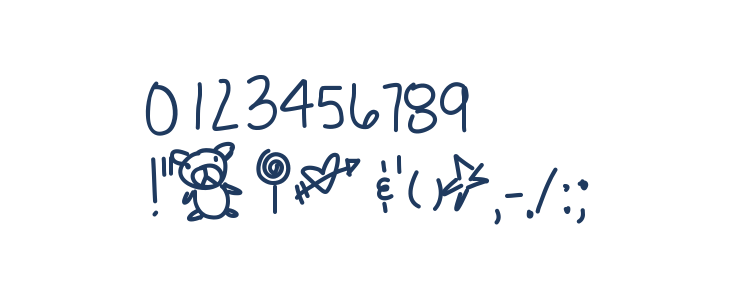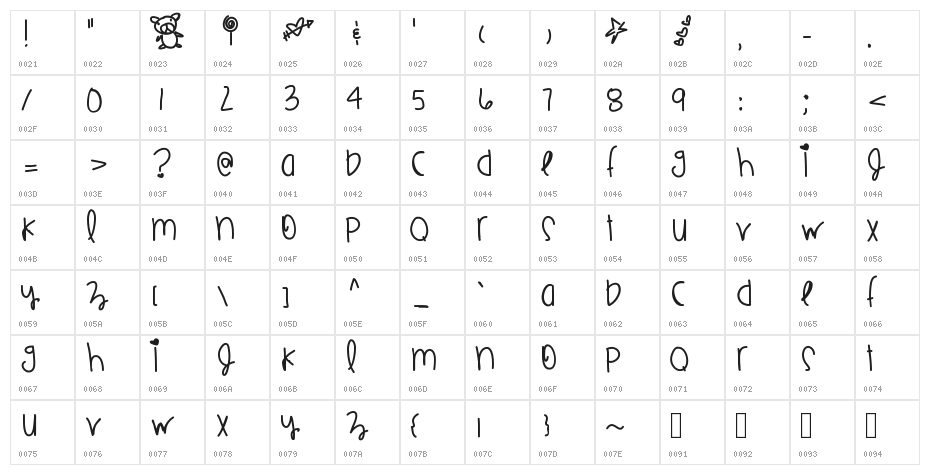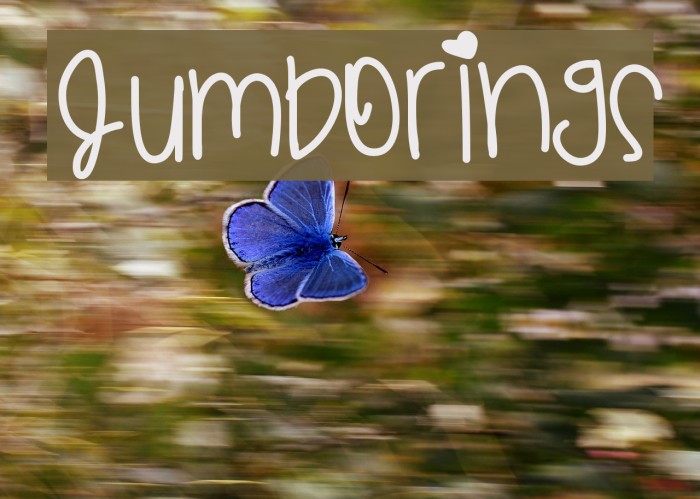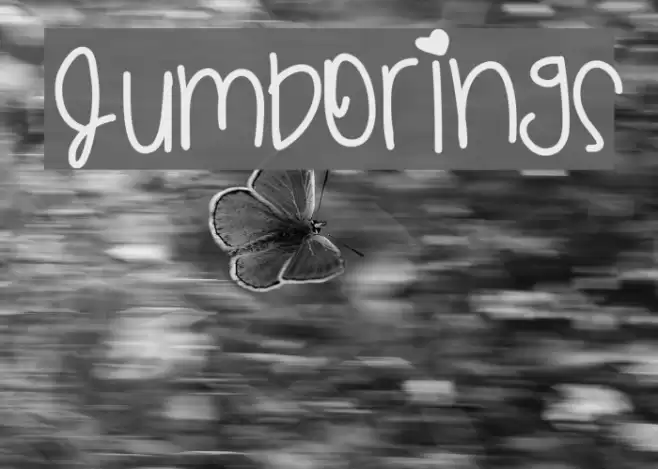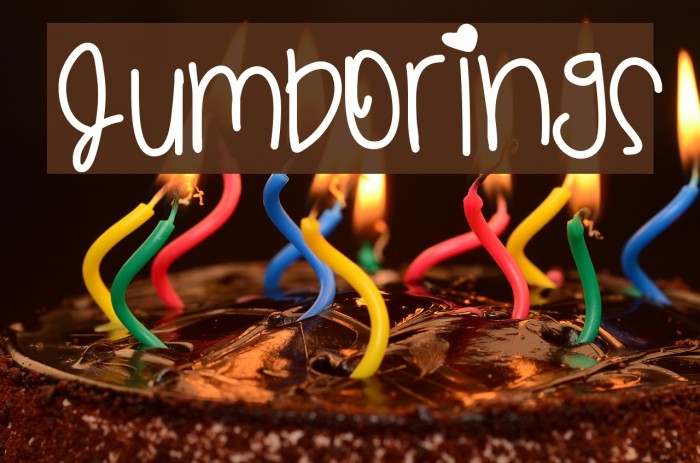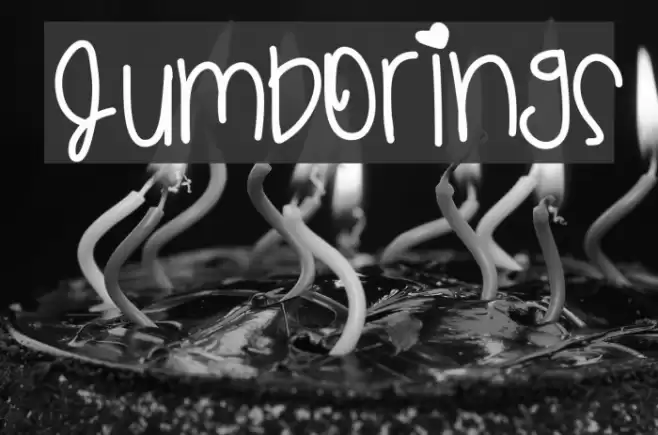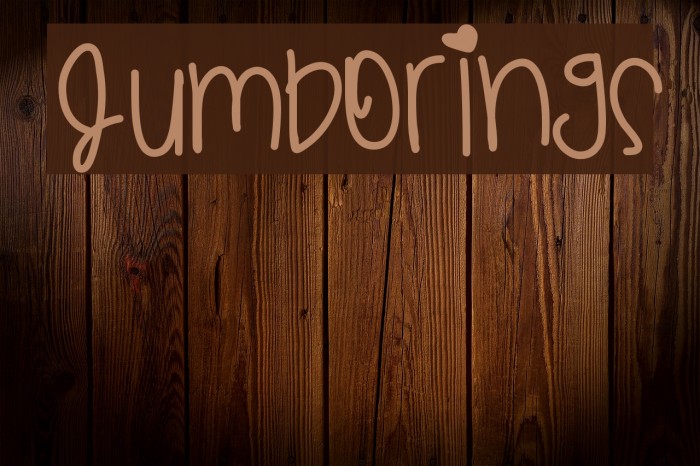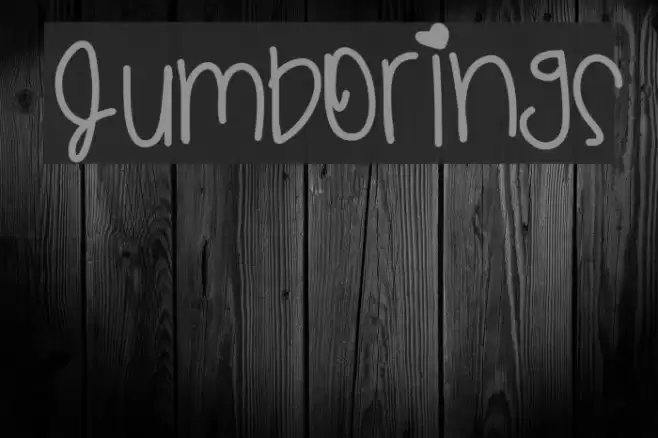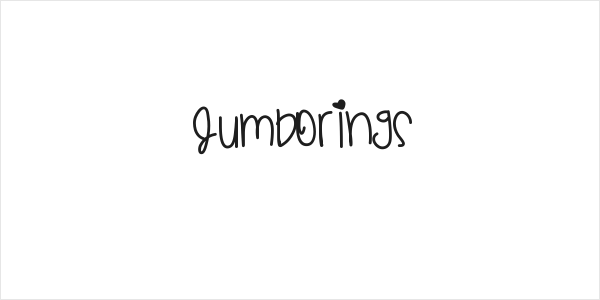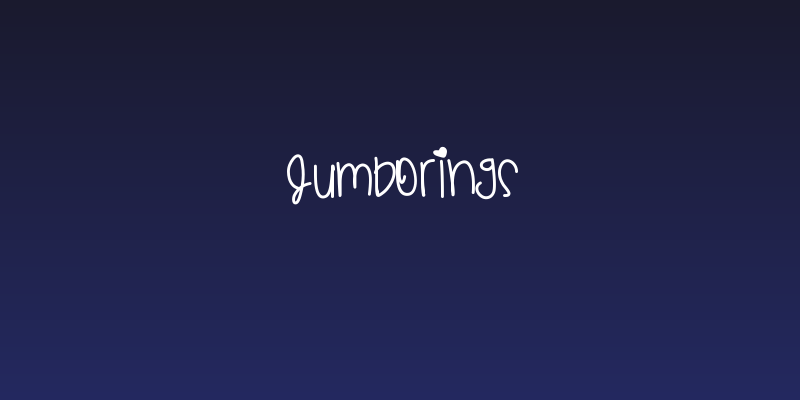
JumboRings Font
JumboRings Description
This playful and whimsical font features a handwritten style with a casual and friendly appearance. The letters are rounded and slightly irregular, giving it a charming and approachable feel. The inclusion of small decorative elements, such as hearts and stars, adds a unique and fun touch. The numbers and special characters maintain the same playful aesthetic, making it suitable for creative and informal projects. The overall design is consistent, with a smooth flow between characters, enhancing its readability while maintaining its quirky personality.